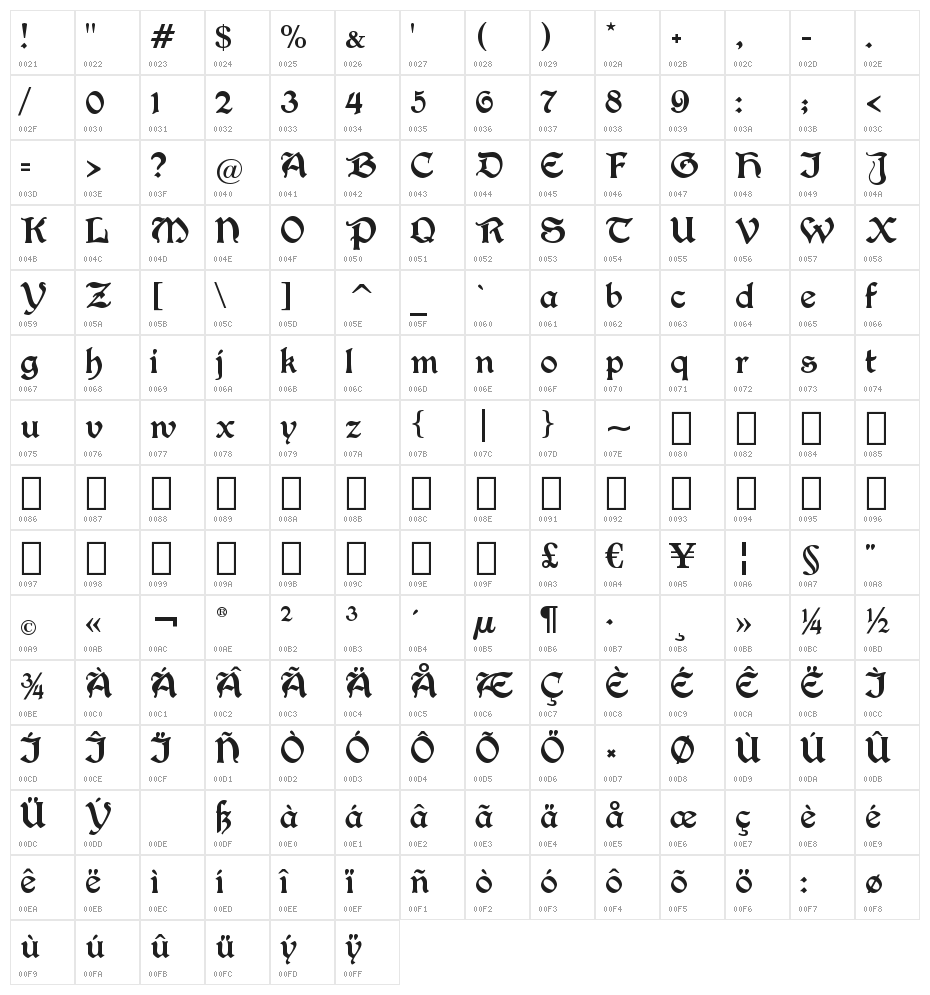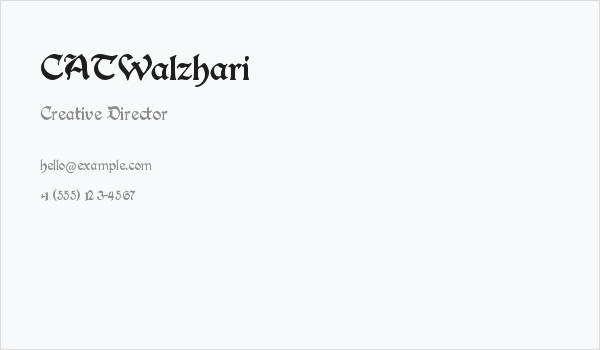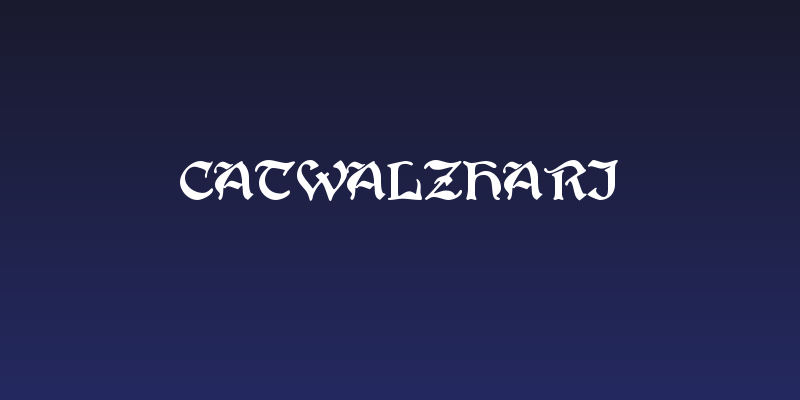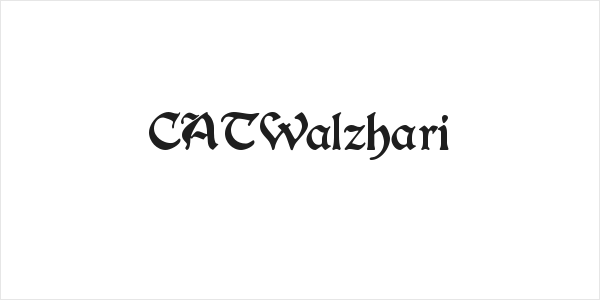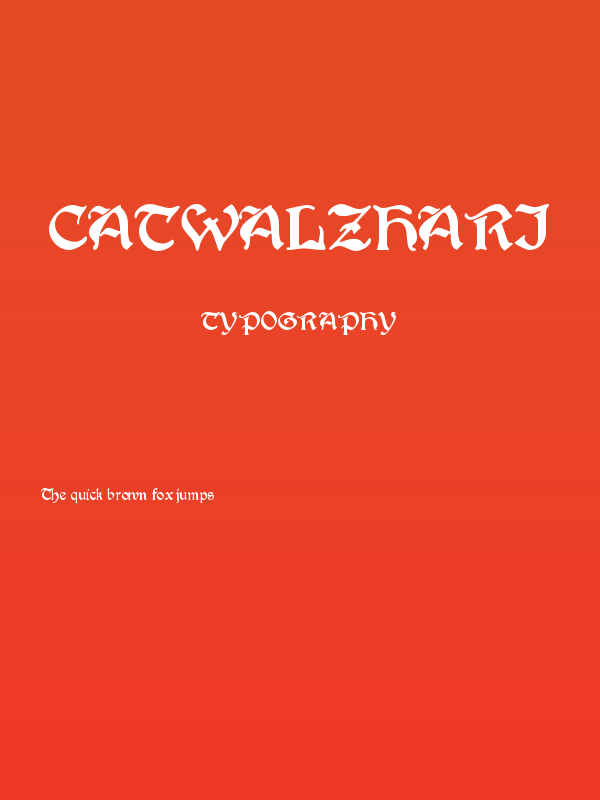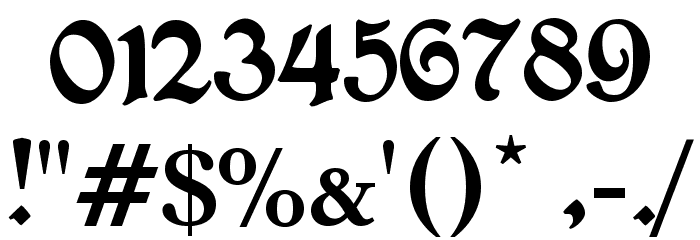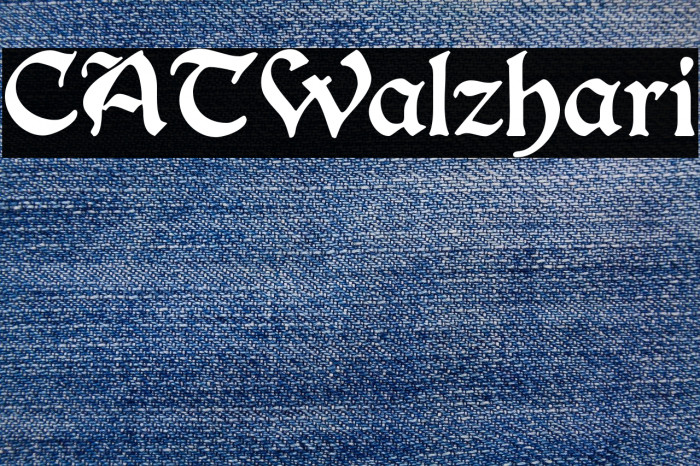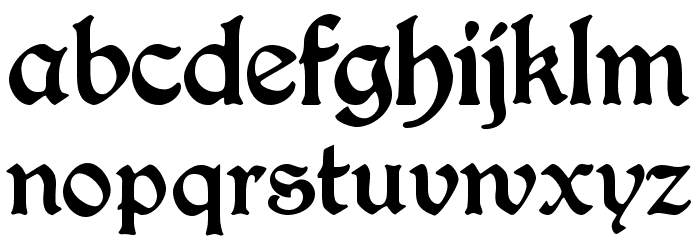
CATWalzhari Font
CATWalzhari Description
This font exhibits a distinct medieval and gothic style, characterized by its ornate and intricate letterforms. The uppercase letters feature sharp, angular serifs and decorative elements that evoke a sense of historical elegance. The lowercase letters maintain a consistent style, with a slightly more rounded appearance, yet still retain the gothic influence. The numerals are bold and clear, matching the overall aesthetic of the font. Special characters are designed with the same attention to detail, ensuring a cohesive look across all glyphs. This font is ideal for projects that require a touch of historical or fantasy-themed design.